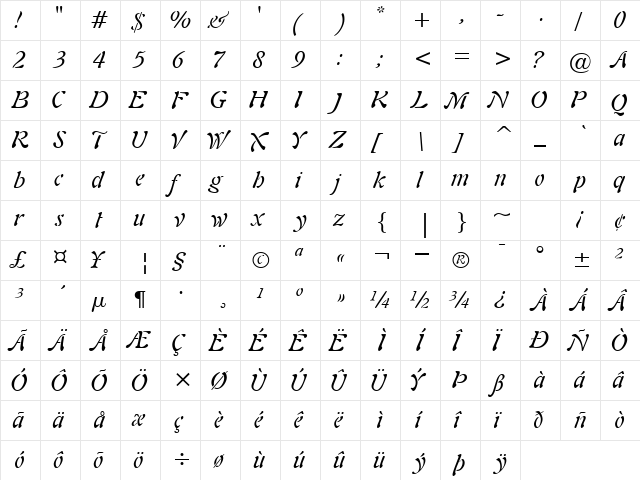
ParielSSK Italic
Design Context for ParielSSK Typeface
ParielSSK is a composed and adaptable typeface that performs quietly and consistently across a wide range of design contexts. The dynamic lean of this cut emphasises speed and emphasis in any layout.
Pro Tip: Try ParielSSK for annotation and caption copy alongside an upright companion — the contrast in angle creates a dynamic but ordered typographic system.